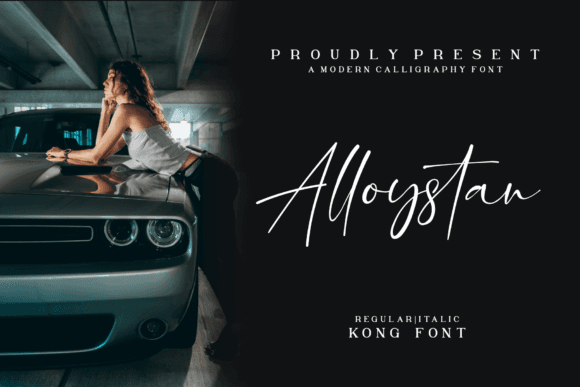
Alloystan Font for Crafting, Logos and Print Projects
This font offers a sturdy, structured aesthetic, making it a perfect fit for crafting projects, brand development, and print-focused layouts. Alloystan stands out with a clean geometry that ensures strong legibility and visual authority in every use. Its versatility allows it to adapt seamlessly across various mediums, from digital interfaces to physical merchandise. Additionally, the Almonte font for creative projects enhances overall design aesthetics, allowing for a harmonious blend of functionality and artistry. This combination of strength and elegance makes it an ideal choice for both established brands and emerging creatives alike.
As a font entity, it’s engineered to serve both decorative and functional purposes. Whether you're designing bold labels, merchandise, or branded assets, Alloystan maintains a polished, professional appeal across all formats.
It’s a ready-to-go asset for designers looking to make a powerful typographic impact with minimal setup.
- Logo designs and branding suites
- Print signage, labels, and tags
- Custom apparel and merch typography
- Marketing materials and packaging
- Posters, flyers, and digital content
- Strong character set with clean execution
- Great for both digital and physical design
- Professional aesthetic for branding and print
Q: What kind of font is Alloystan?
A: Alloystan is a display-style font with bold, clean lines designed for crafting, branding, and professional print design.
Q: Is it good for printed materials like signage and posters?
A: Yes, Alloystan is optimized for high clarity and readability in print applications.